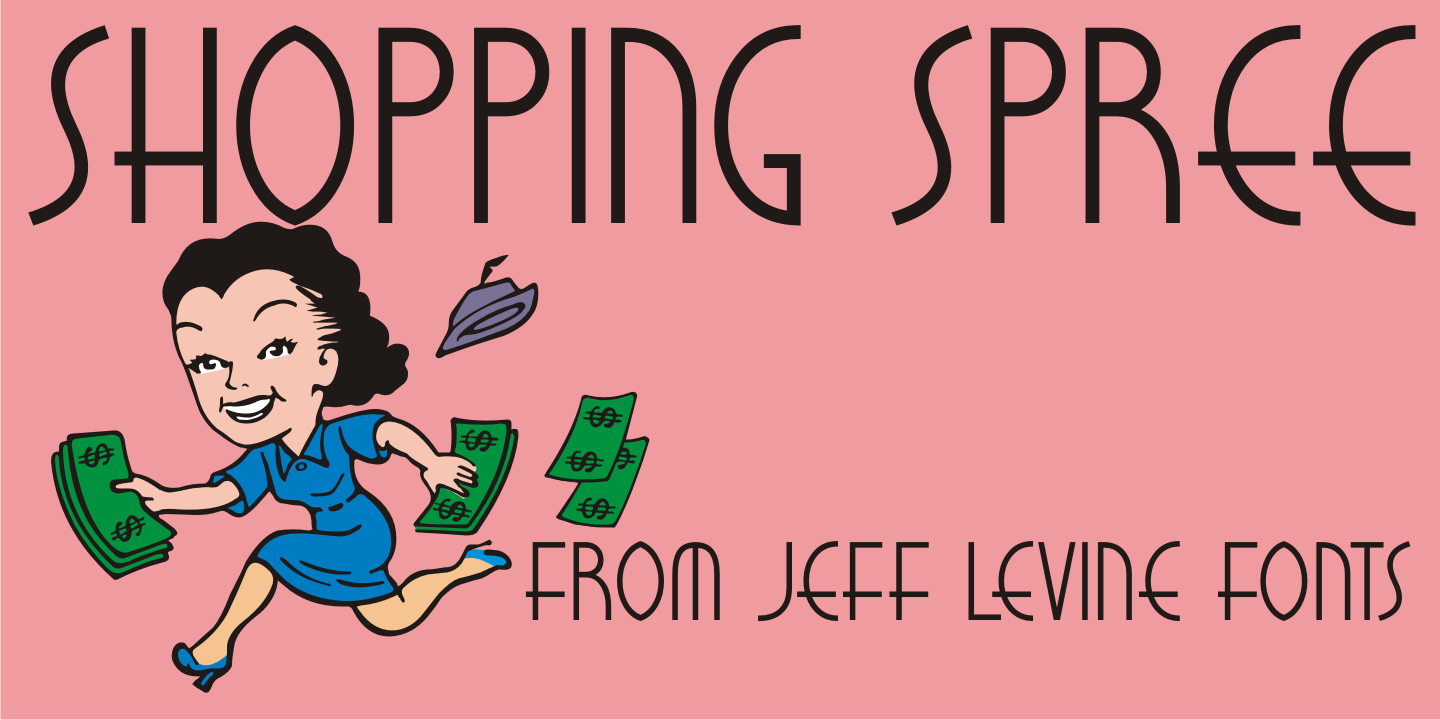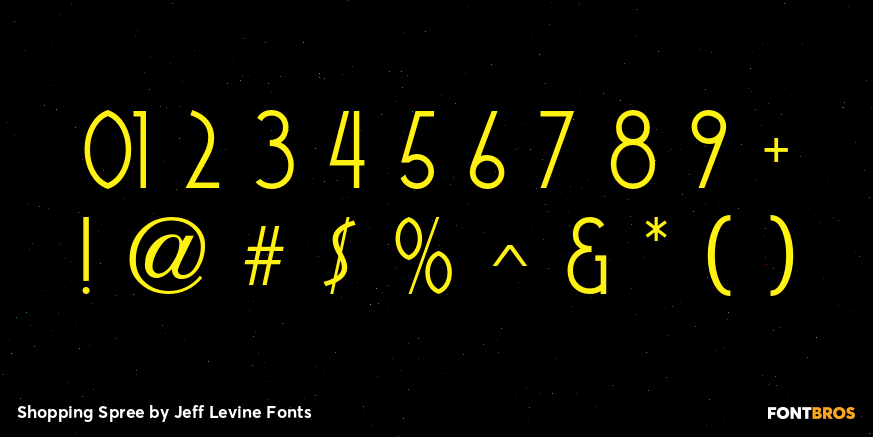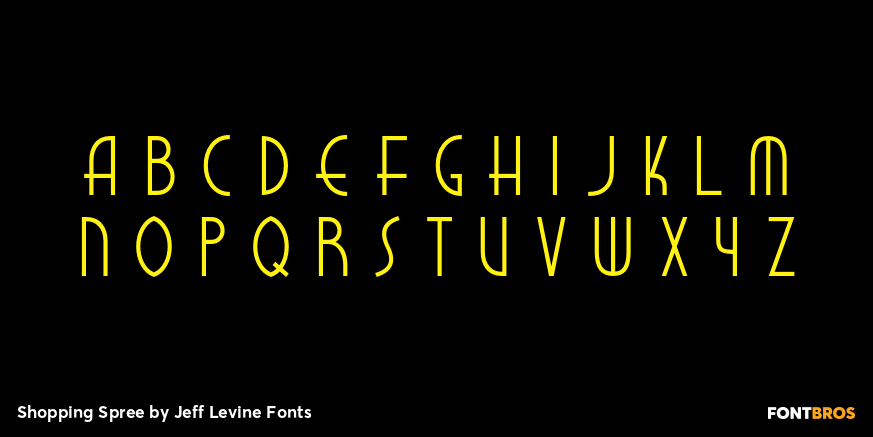
Shopping Spree
Shopping Spree JNL was inspired by the hand lettering on the title card for the 1938 film "Fast Company" starring Melvyn Douglas and Florence Rice.